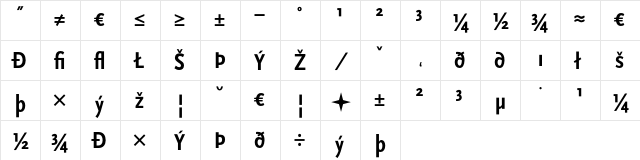
Scala Sans Bold Exp Cn Font Preview
Scala Sans Bold Exp Cn
Design Context for Scala Sans Typeface
Scala Sans takes a measured approach to typography — its balanced proportions and neutral character make it a reliable workhorse for both digital and print work. The heavy weight commands attention and anchors typographic hierarchies.